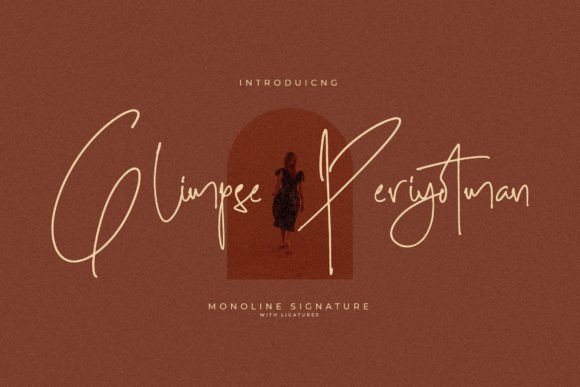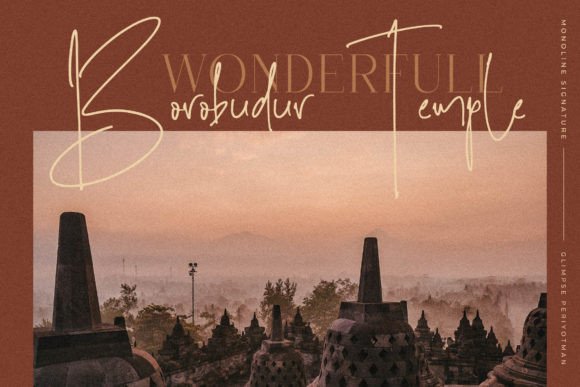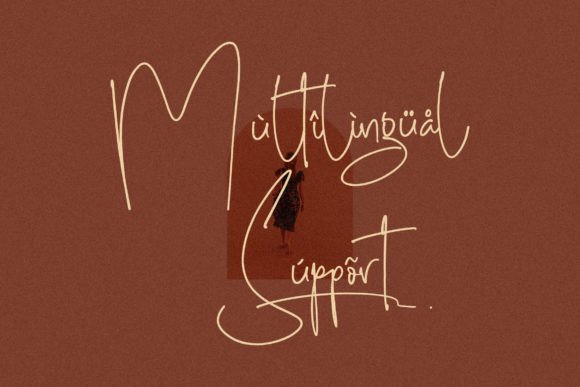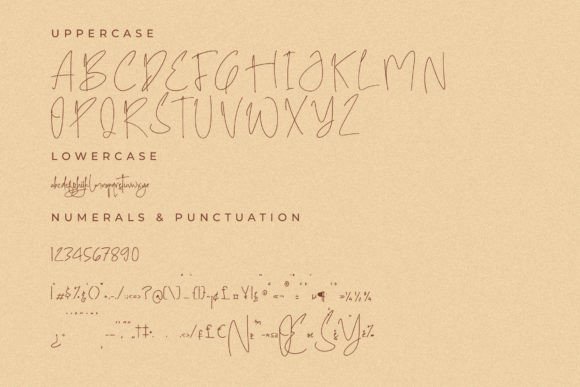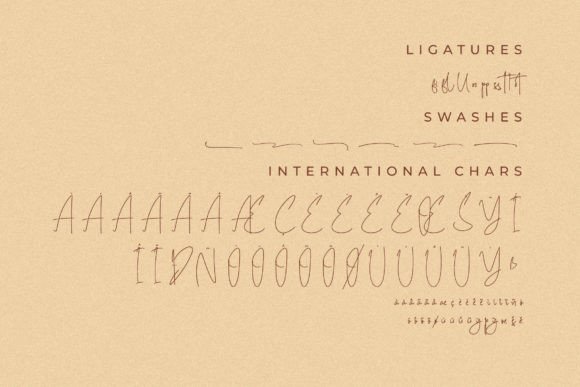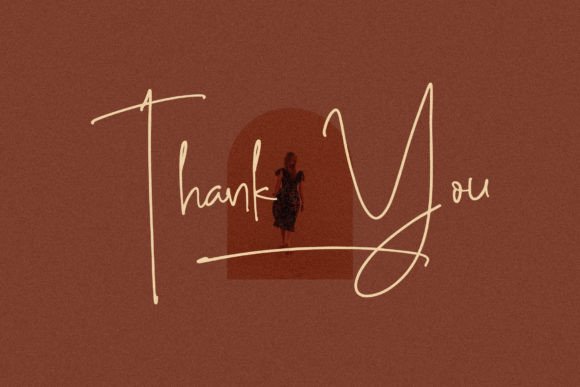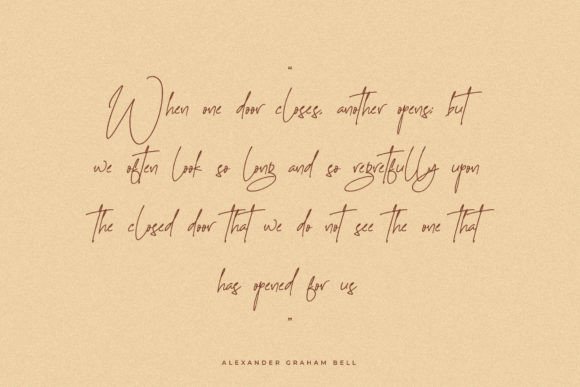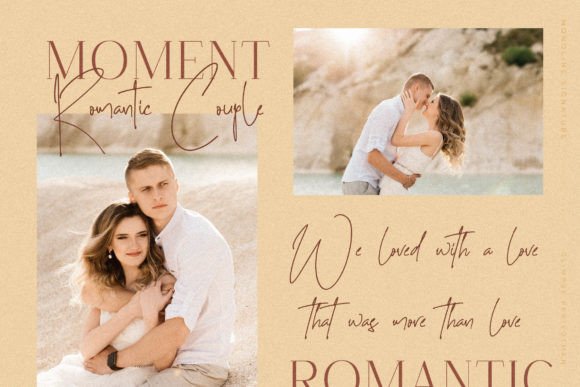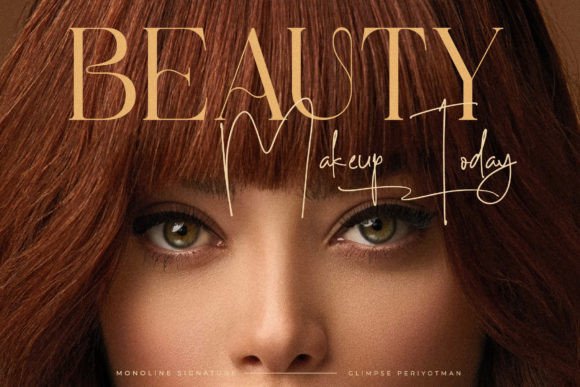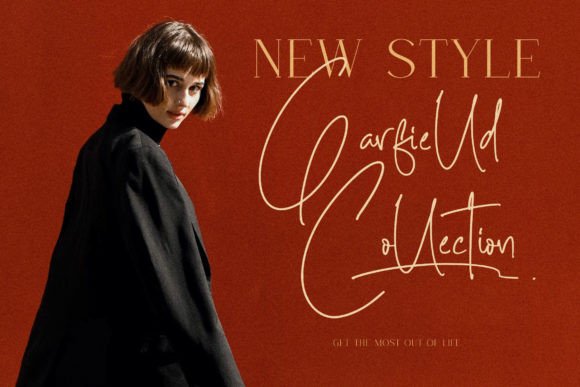
Glimpse Periyotman Font
About Glimpse Periyotman Font
Glimpse Periyotman is an enchanting handwritten font that captures the essence of romance and elegance. This font was designed to make your creative projects stand out with a warm, personal touch. Each letter flows naturally, creating a smooth and graceful appearance that feels handcrafted and authentic.
Romantic Touch for Any Project
Glimpse Periyotman shines in any design where you want to evoke emotion and charm. Whether you are creating a wedding invitation, a greeting card, or a romantic social media graphic, this font delivers the perfect blend of sophistication and warmth. Its smooth curves and stylish lines make every word feel special.
This font is perfect for:
• Wedding stationery and save-the-date cards
• Elegant branding and logos
• Personal notes and letters
• Product packaging
• Quotes and wall art
• Invitations for birthdays, anniversaries, or engagements
• Website banners and blog headers
Beautiful and Versatile Handwriting Style
What makes Glimpse Periyotman unique is its graceful handwritten style. Each character feels balanced and smooth, with delicate curves that create a sense of flow. The slightly elongated letters and gentle strokes add a refined yet approachable vibe.
Because of its versatile nature, you can use this font in both formal and casual projects. It adapts beautifully to any theme while keeping its signature romantic look.
Perfect for Small Business and Personal Use
If you own a small business, Glimpse Periyotman can help your brand feel more authentic. Use it to design product labels, business cards, or packaging that stands out. The romantic feel also makes it an ideal font for personalized gifts and custom items.
Crafters love using Glimpse Periyotman to add personality to handmade products, journals, or scrapbooks. Whatever you create, this font brings a unique charm that draws people in.
Why Designers Choose Glimpse Periyotman
Glimpse Periyotman has many benefits:
• Romantic look: Soft, flowing letterforms
• Readability: Clear characters at any size
• Versatility: Great for both professional and personal projects
• Warmth: Adds an authentic, human touch
If you want to make your message feel heartfelt and stylish, Glimpse Periyotman is the perfect choice.
Bring Your Designs to Life
Typography sets the mood and personality of your work. Glimpse Periyotman makes sure your designs feel beautiful, romantic, and unforgettable. From invitations to logos, this font will elevate any project.